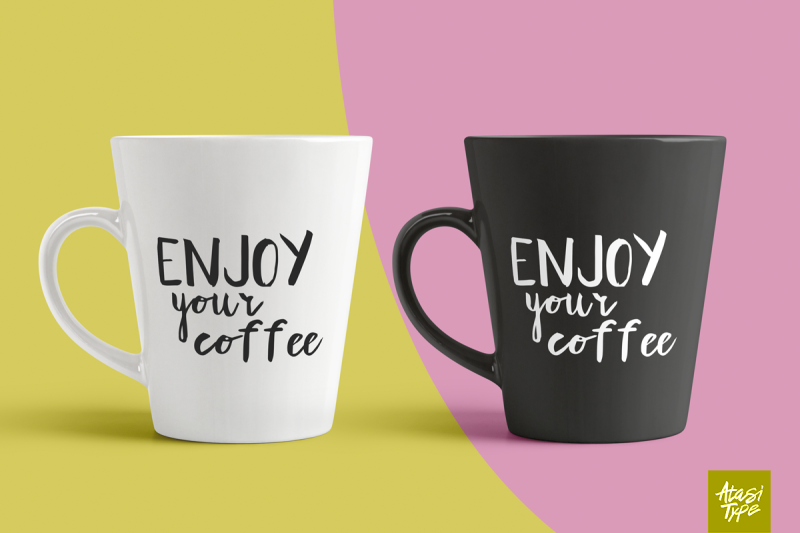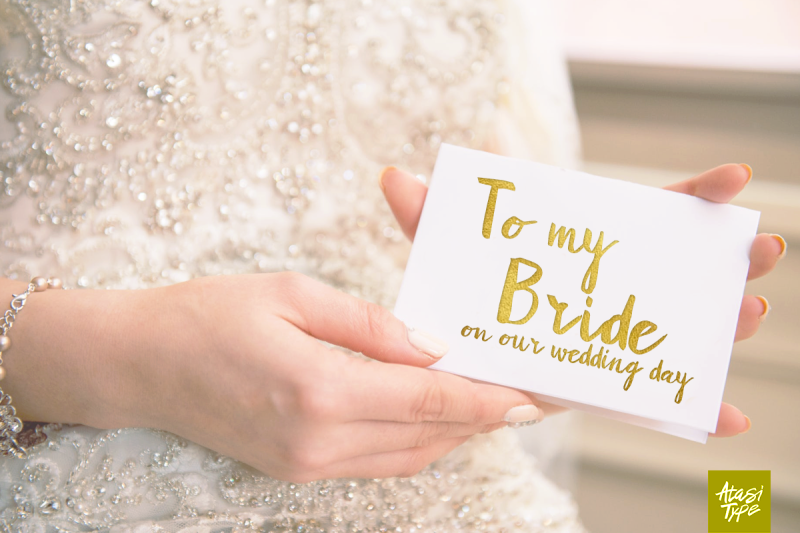
Yellow Honey Brush Font
Yellow Honey is a script font with natural handwritten made by brush watercolor, it’s suitable for logotype, headline, apparel, branding, invitation, thumbnail video, etc.